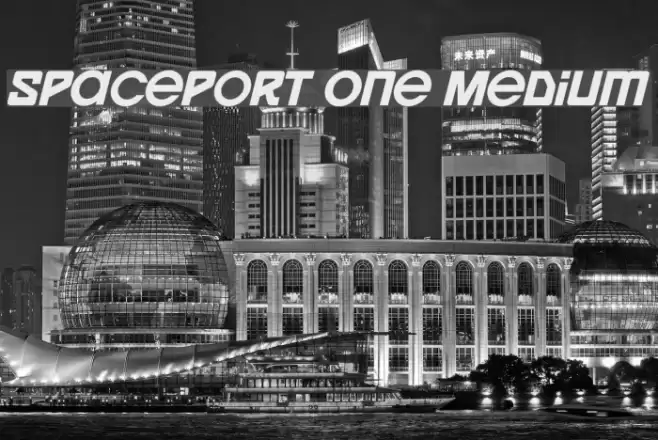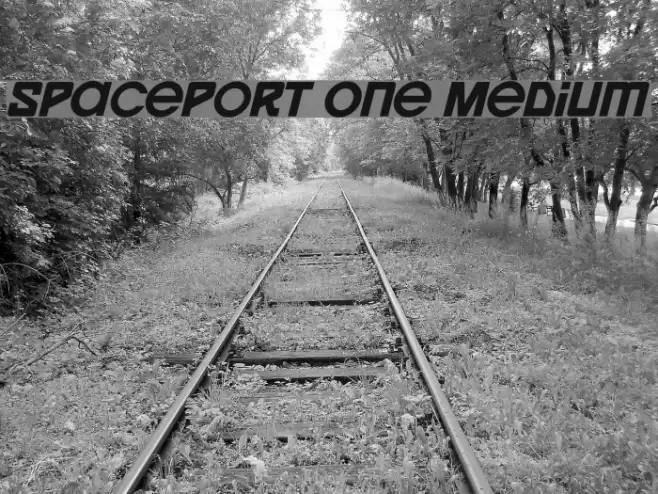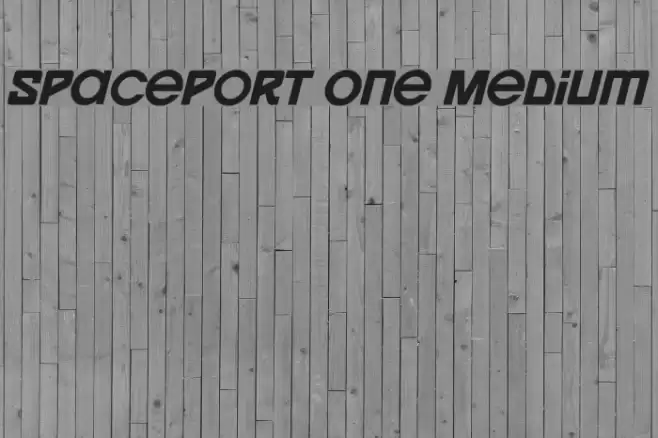
Spaceport One Medium Font
Spaceport One Medium Description
This font features a futuristic and dynamic design with bold, angular lines and a slanted orientation, giving it a sense of motion and speed. The characters are distinct with sharp edges and a geometric structure, making it ideal for modern and tech-oriented themes. The uppercase and lowercase letters maintain a consistent style, while the numerals and special characters complement the overall aesthetic. Its unique appearance makes it stand out, suitable for eye-catching designs.
A futuristic, bold, and angular font with a slanted orientation from Uncategorized fonts.
- Proposed Projects: Ideal for sci-fi movie posters, tech branding, video game titles, and futuristic event flyers.